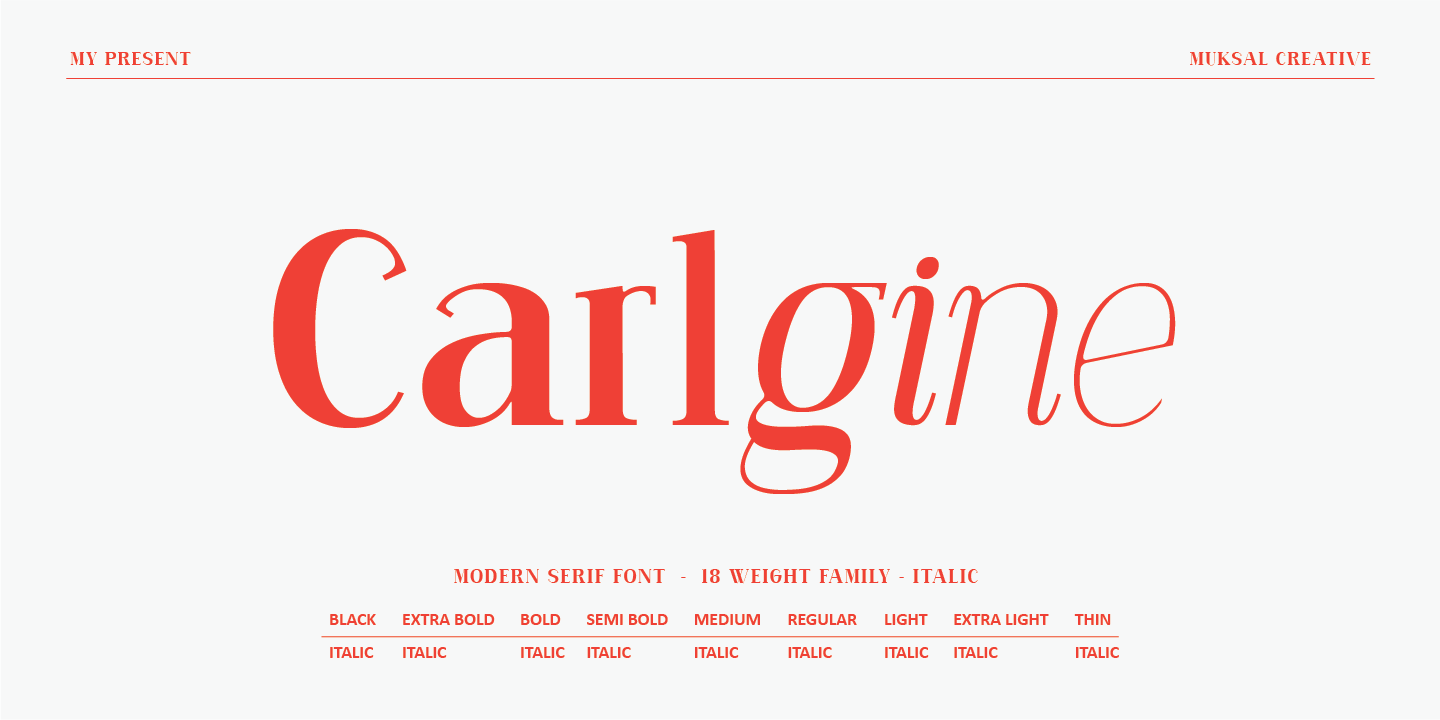
Carlgine Font is ideal for various design applications including automotive engineering firms, mechanical design studios, industrial machinery branding, precision manufacturing companies, technical documentation materials, engineering conference presentations, automotive parts packaging, and advanced machinery communications that require engineering sophistication and mechanical precision.
What makes Carlgine Font truly exciting is its masterful embodiment of mechanical engineering excellence and automotive precision that captures the essence of finely-tuned engines and the sophisticated machinery that powers modern transportation and industrial innovation through precise engineering and meticulous craftsmanship. This technical typeface features structured letterforms with subtle mechanical details that evoke images of precision-engineered components, powerful automotive engines, and the complex machinery that drives modern manufacturing and transportation systems. The font's engineering character reflects the accuracy and innovation required in mechanical design, making it perfect for brands that want to communicate technical excellence, engineering precision, and the sophisticated machinery that powers industrial advancement. Its mechanical appearance creates immediate associations with automotive engineering and precision manufacturing.
The Carlgine Font family includes multiple weights and mechanical variations designed to enhance engineering communication. The collection features Light, Regular, Medium, Bold, and Black weights, each maintaining the font's characteristic mechanical appeal while offering different levels of engineering presence. The family also includes alternate characters with varying technical effects, precision elements that simulate engineering drawings, and stylistic sets that create systematic text arrangements reflecting the order of mechanical processes. Additional features include contextual alternates and engineering ligatures that enhance the authentic, technical appearance.
Engineering and automotive professionals consistently choose Carlgine Font Free Download for projects requiring authentic mechanical character and engineering credibility. The font's technical nature makes it particularly effective for automotive companies, engineering firms, and manufacturing organizations targeting audiences who appreciate mechanical precision and engineering excellence. Its excellent readability across various applications ensures effective communication while maintaining the distinctive mechanical character that conveys engineering authority and technical sophistication.
The advanced OpenType capabilities of Carlgine Font include contextual alternates, stylistic sets, and comprehensive character support that accommodates engineering terminology and technical expressions while preserving the font's authentic mechanical character. The technical precision ensures consistent engineering appearance across different automotive applications and manufacturing platforms.
For creative professionals seeking a typeface that embodies genuine engineering heritage and mechanical sophistication, Carlgine Font offers unparalleled technical appeal and automotive elegance. Its ability to convey engineering authority while maintaining functional communication makes it invaluable for automotive companies, engineering firms, and manufacturing organizations. The font's distinctive mechanical character ensures memorable engineering impact across all applications, creating powerful visual identity systems that celebrate the precision of mechanical engineering and the sophisticated machinery that continues to drive automotive innovation and industrial advancement through precise design and technical excellence.